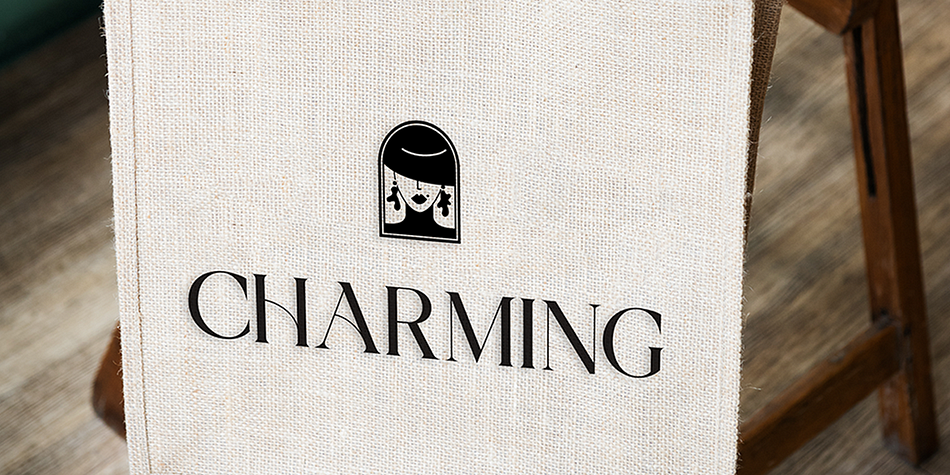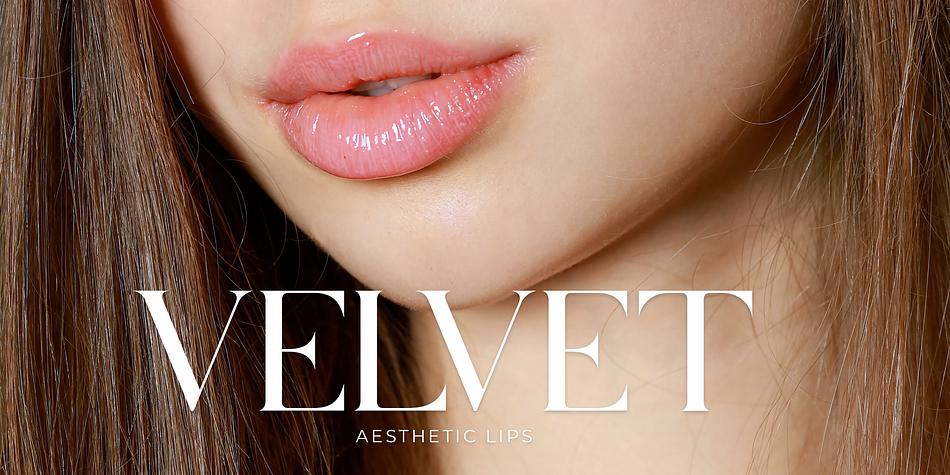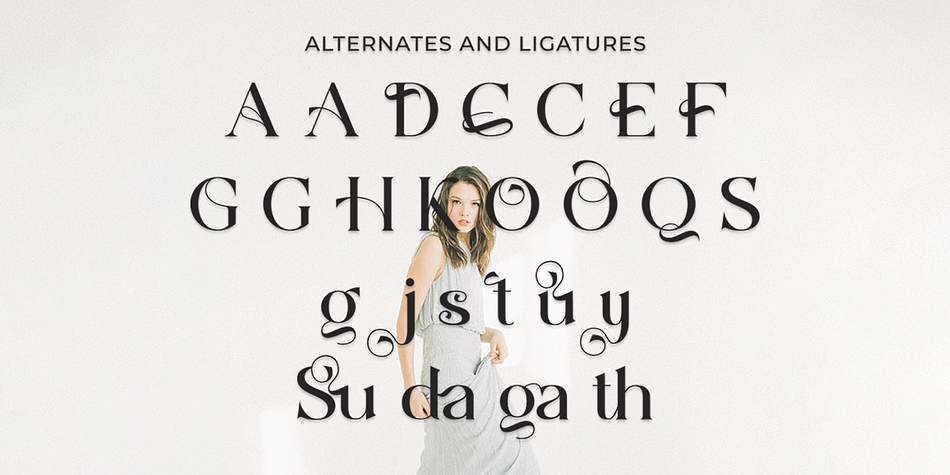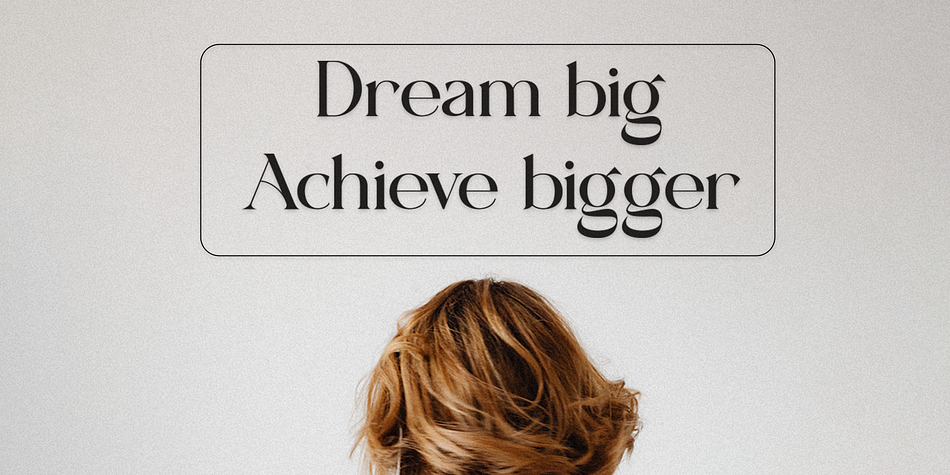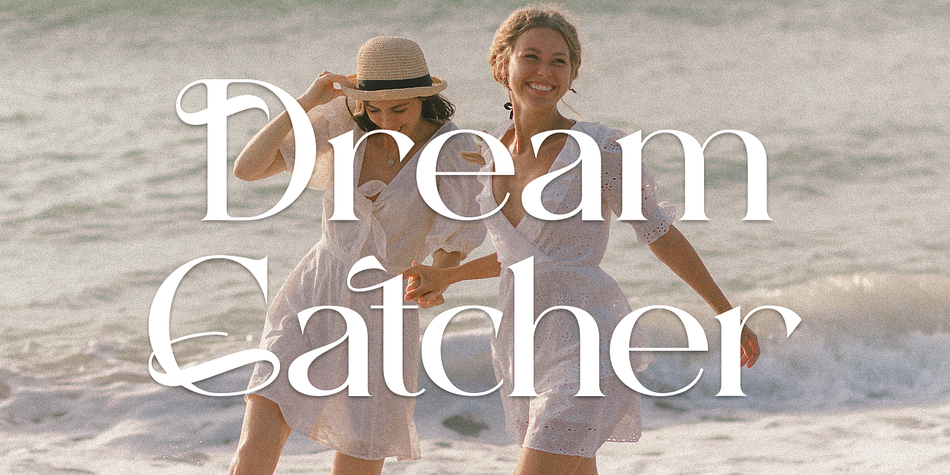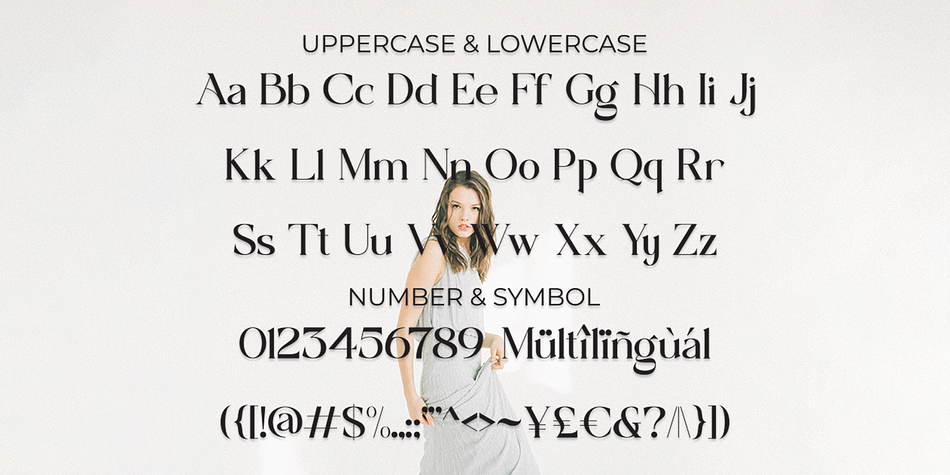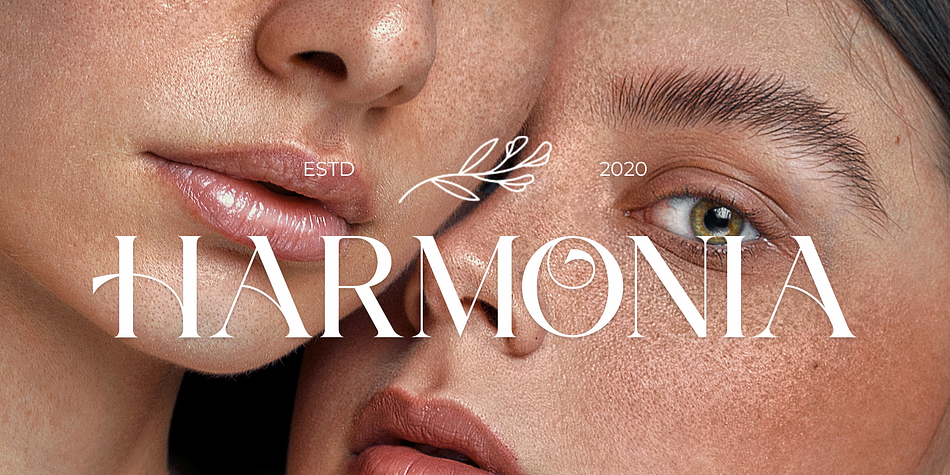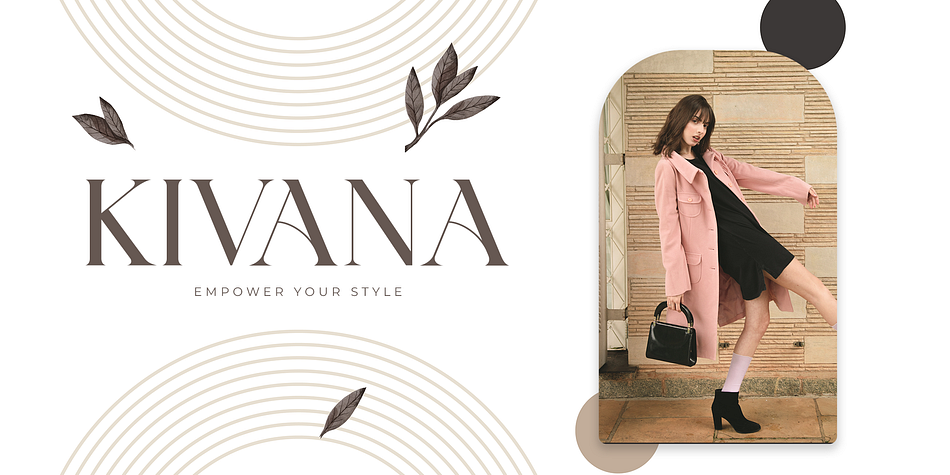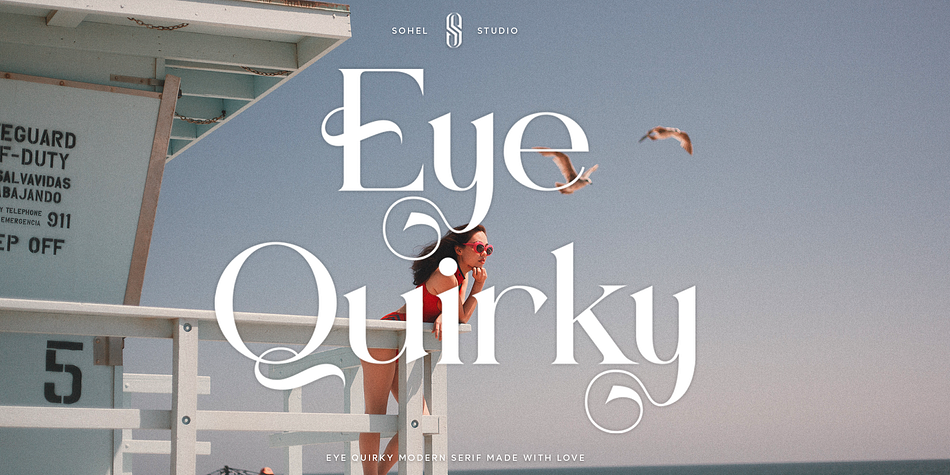
Eye Quirky
Eye Quirky is a display serif font family. This typeface has two styles and was published by Sohel Studio.
Eye Quirky is a Modern elegant serif typeface with Unique alternative , multilingual support with perfect kerning.
This typeface is perfect for an elegant & luxury logo , classy editorial design, women’s magazine, fashion brand , cosmetic brand, fashion promotion ,
modern advertising design, invitation card, art quote, home decoration , book/cover titles, special events, Tote bag, T-shirt, Advertising and much more.
Eye Quirky Features:
• Uppercase And Lowercase
• Alternates And Ligatures
• Numerals & Punctuation
• Accented characters
• Multilingual Support